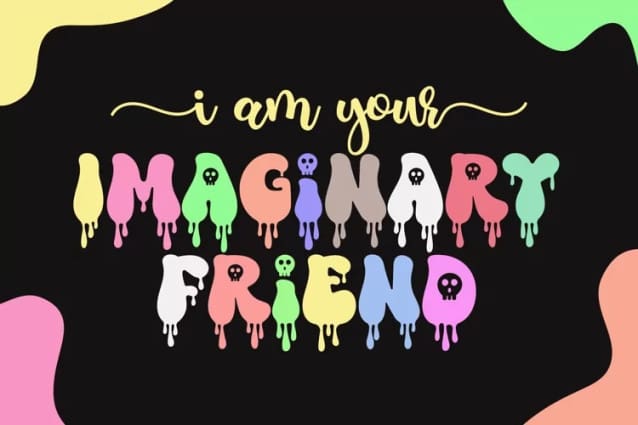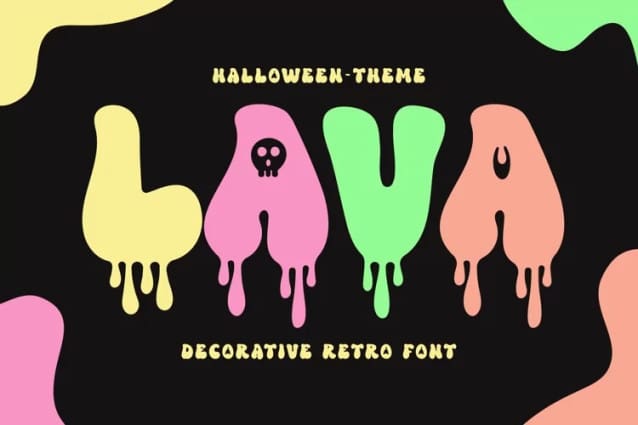
Lava Display Font
Lava Display Font, is all caps halloween font with retro vibes. It has dripping shape under the letters. This font is perfect font for design that needs scary and retro vibes, such as Halloween, stickers, t-shirt, crafting, sublimation, and many more.